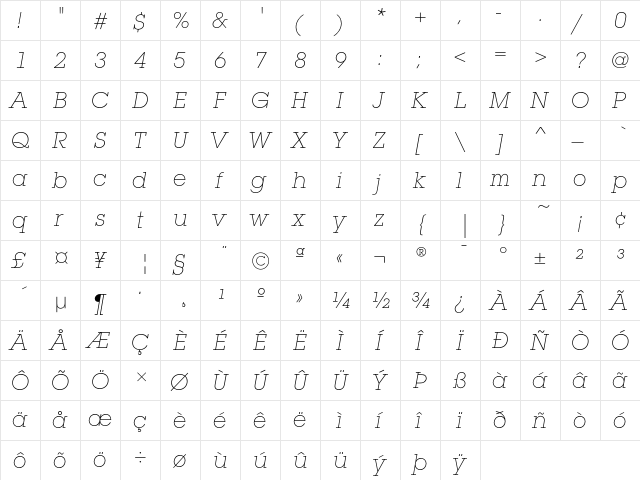
LubalinGraphEF ExLightOblique
Design Context for LubalinGraphEF Typeface
LubalinGraphEF is a composed and adaptable typeface that performs quietly and consistently across a wide range of design contexts. The slanted form adds forward momentum and visual energy. Its slender proportions lend an understated elegance to any composition.
Pro Tip: Use LubalinGraphEF for emphasis, pull quotes, and subheadings where its slanted energy can add rhythm to the layout.